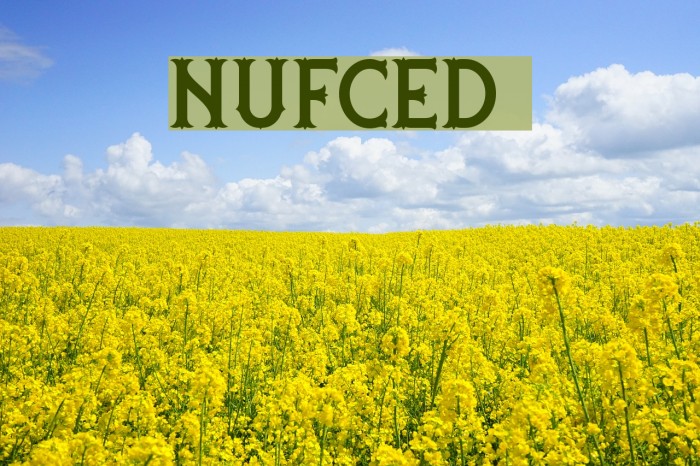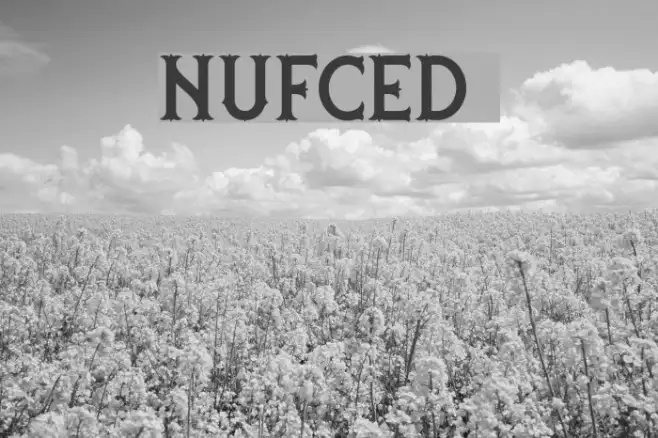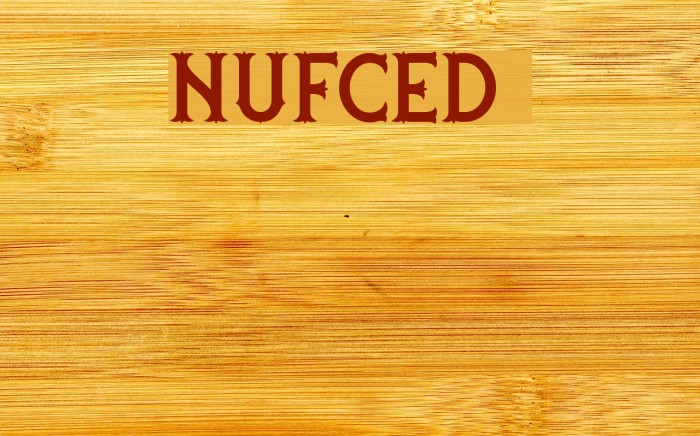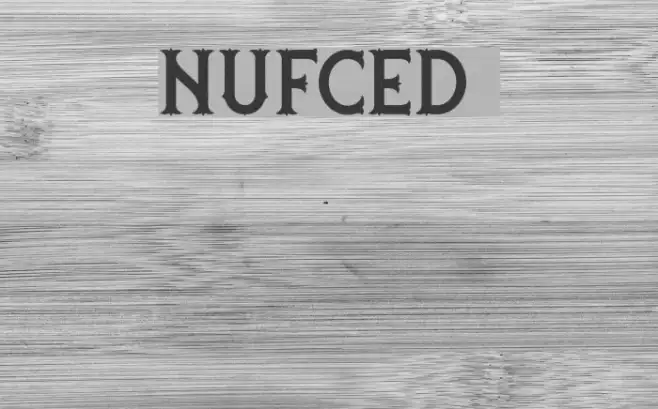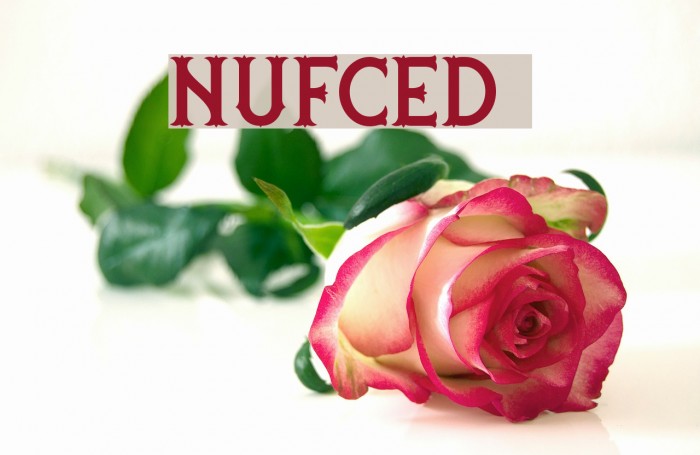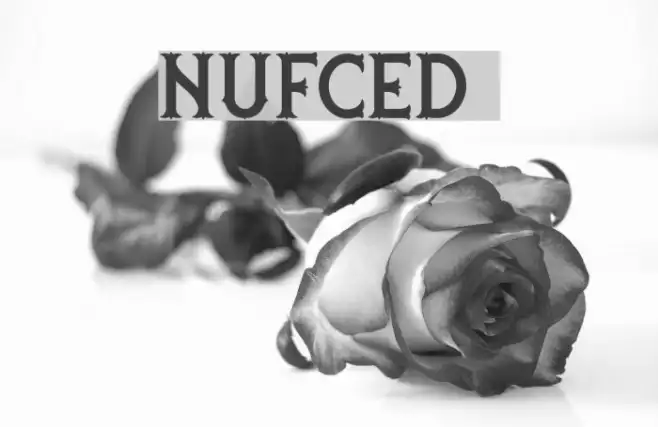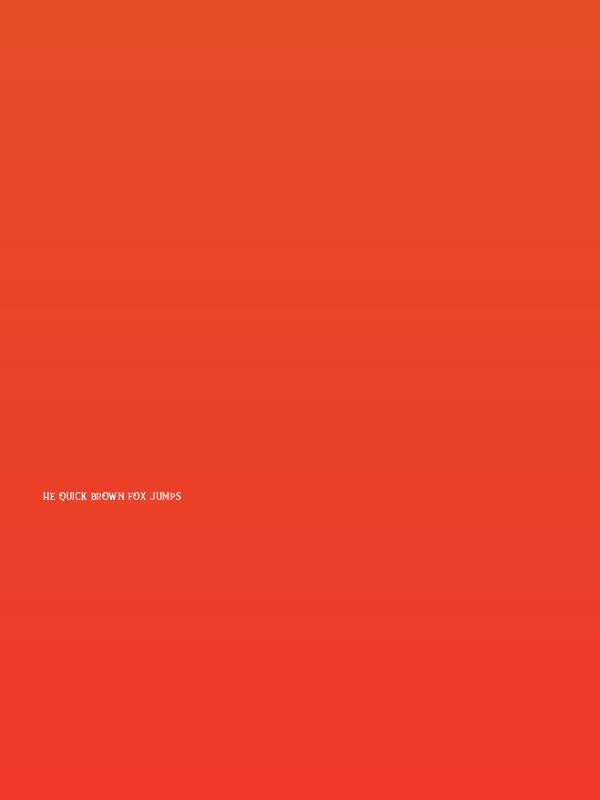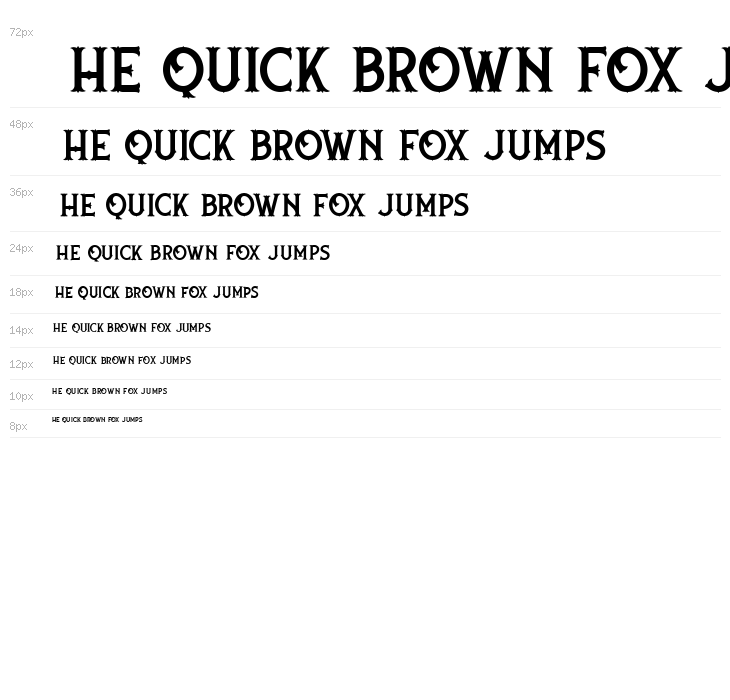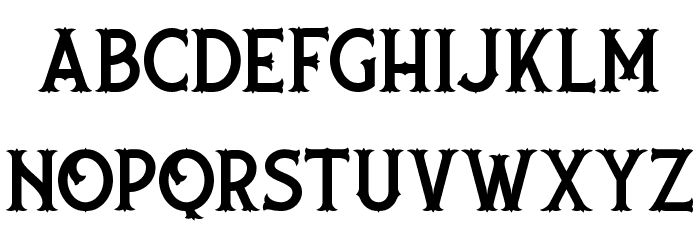
nufced DEMO Font
nufced DEMO Description
This font features a bold and dramatic style with sharp, pointed serifs and a strong presence. The characters are designed with a high contrast between thick and thin strokes, giving it a striking and authoritative appearance. The uppercase letters are particularly prominent, with a gothic influence that adds a sense of mystery and elegance. The overall design is reminiscent of medieval or fantasy themes, making it suitable for projects that require a touch of the dramatic or historical. The spacing between characters is normal, allowing for readability while maintaining its bold aesthetic.
| Overall Style | Gothic, Dramatic |
| Proposed Projects | Ideal for book covers, movie posters, video game titles, and branding that requires a dramatic or historical feel. |